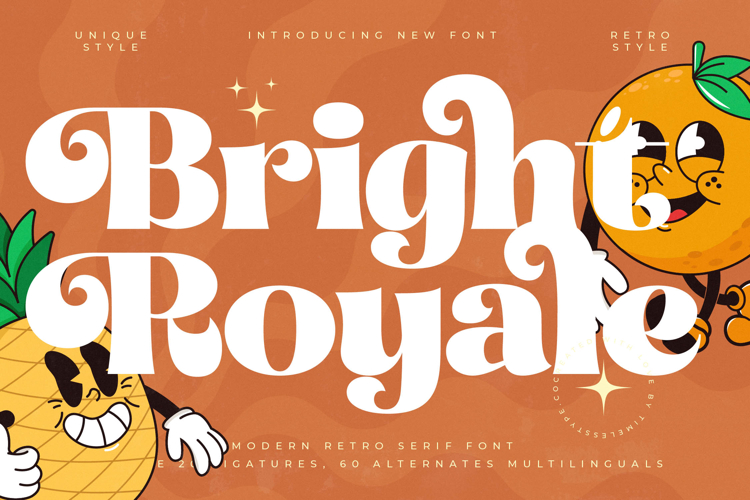
Bright Royale - Modern Retro Serif Font
The Bright Royale Typeface is a modern retro serif font with a cheerful, playful style and strong vintage character. Featuring 20 ligatures and 60 stylistic alternates, this font offers flexibility to create typography that is dynamic, unique, and expressive. Its bold letterforms with decorative curved terminals capture the retro charm of the 1970s while blending in a modern touch, making it perfect for fun and eye-catching design projects.
This typeface is highly effective in editorial design, such as magazine covers, lifestyle articles, and creative books. The alternates and ligatures bring variety to layouts, ensuring they look energetic and never monotonous.
In branding and packaging, Bright Royale is ideal for food & beverage products, cafés, restaurants, youth brands, and creative goods. Its retro-modern aesthetic creates a visual identity that feels warm, approachable, and memorable.
For entertainment and promotional design, this font works beautifully on festival posters, music concert promotions, cultural events, and album covers. Its decorative typographic style quickly grabs attention and strengthens visual storytelling.
In the realm of digital design, Bright Royale performs seamlessly across social media content, website branding, digital ads, and motion graphics, maintaining clear readability while staying stylish. With multilingual support, it adapts perfectly to international projects.
In short, Bright Royale Typeface is a retro serif display font designed to deliver joy, warmth, and vintage-modern energy. Perfect for editorial, branding, packaging, entertainment, advertising, and digital campaigns, this font transforms typography into a fun, stylish, and character-rich visual element.